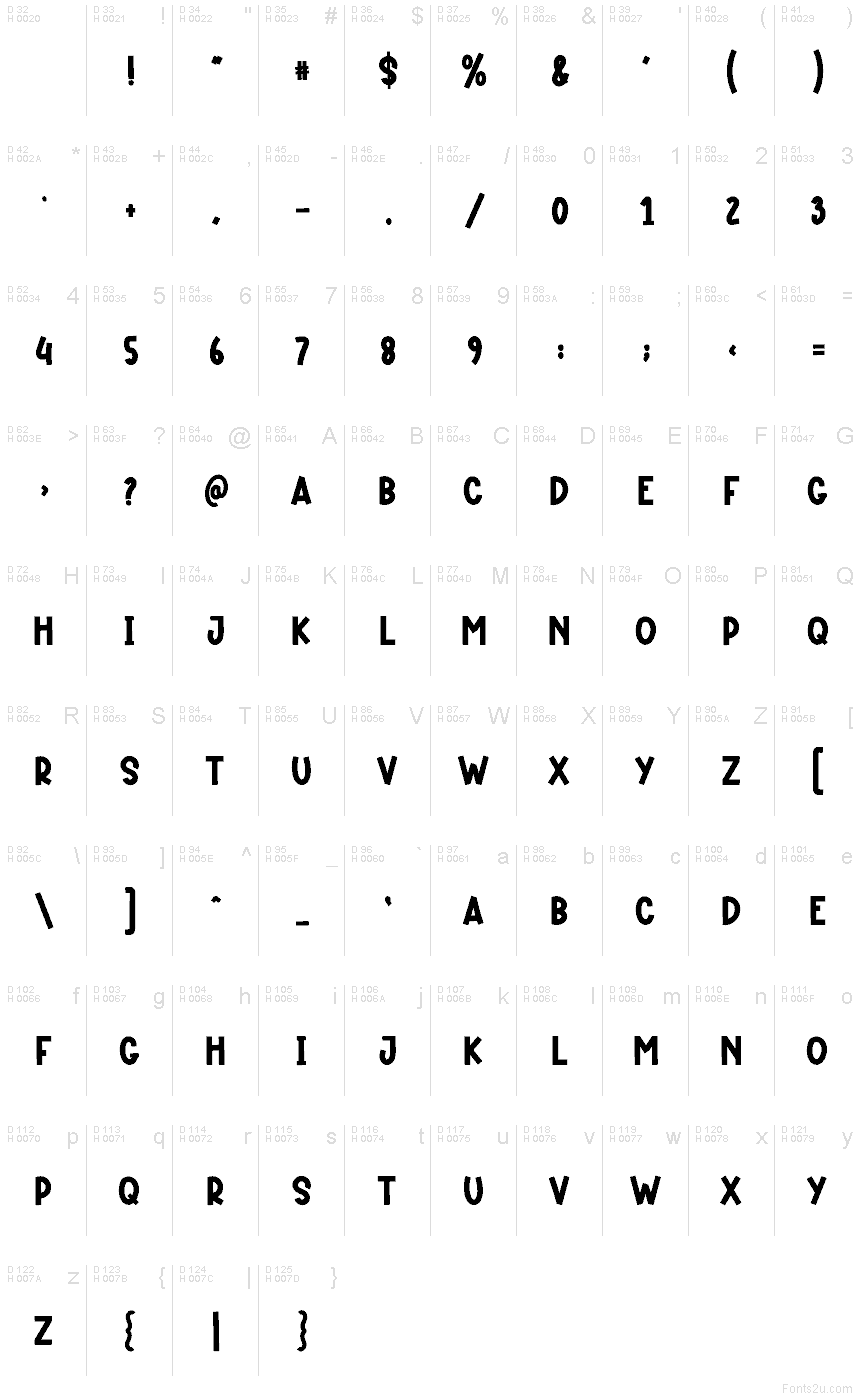
Creamy Latte
Creamy Latte font by Andi Moz is a modernist display typeface with a quirky cartoon style. It has an artistic flair built on a geometric base made of rounded letterforms and straight lines. The font further displays a blocky aspect and gains more attention with its bold presence. Give this free display font a try in your artistic designs.